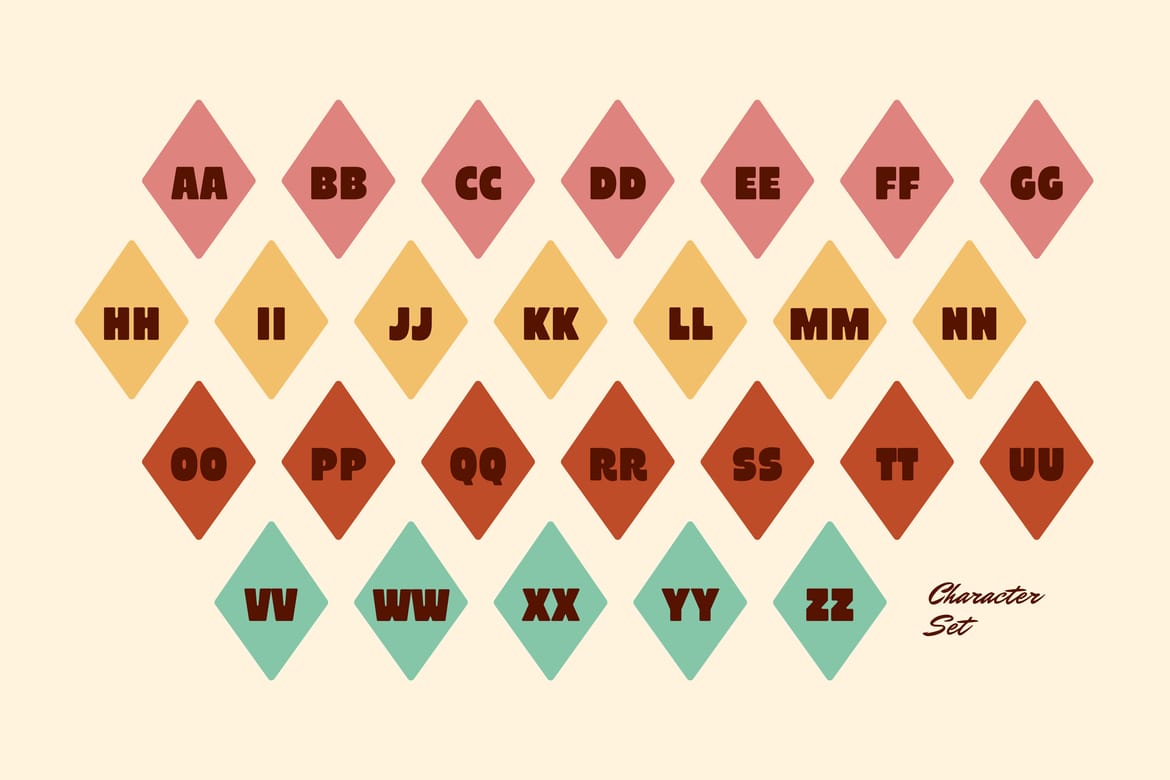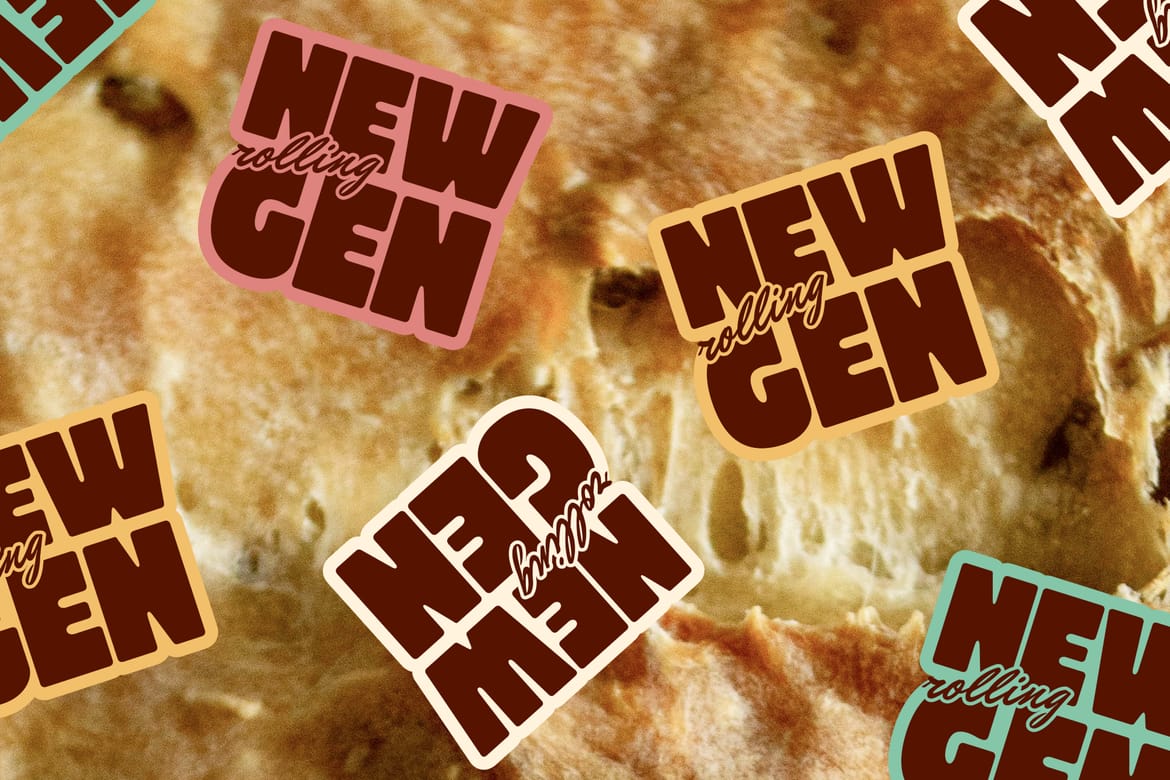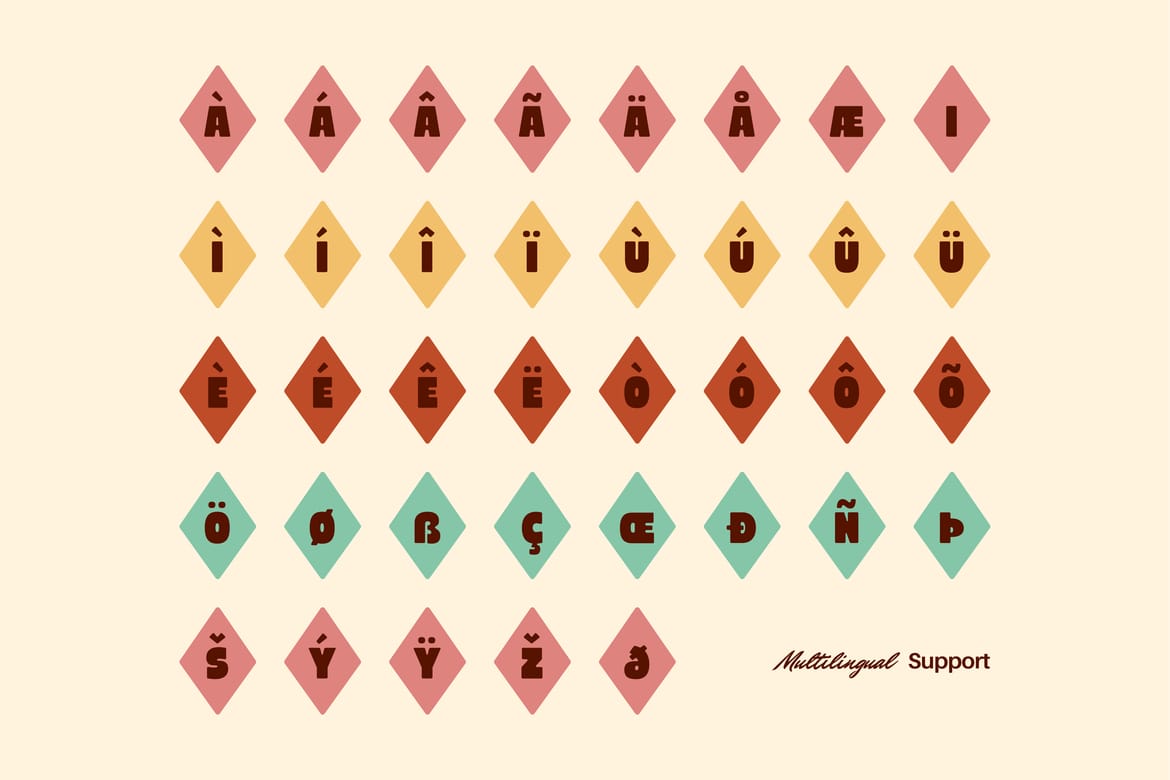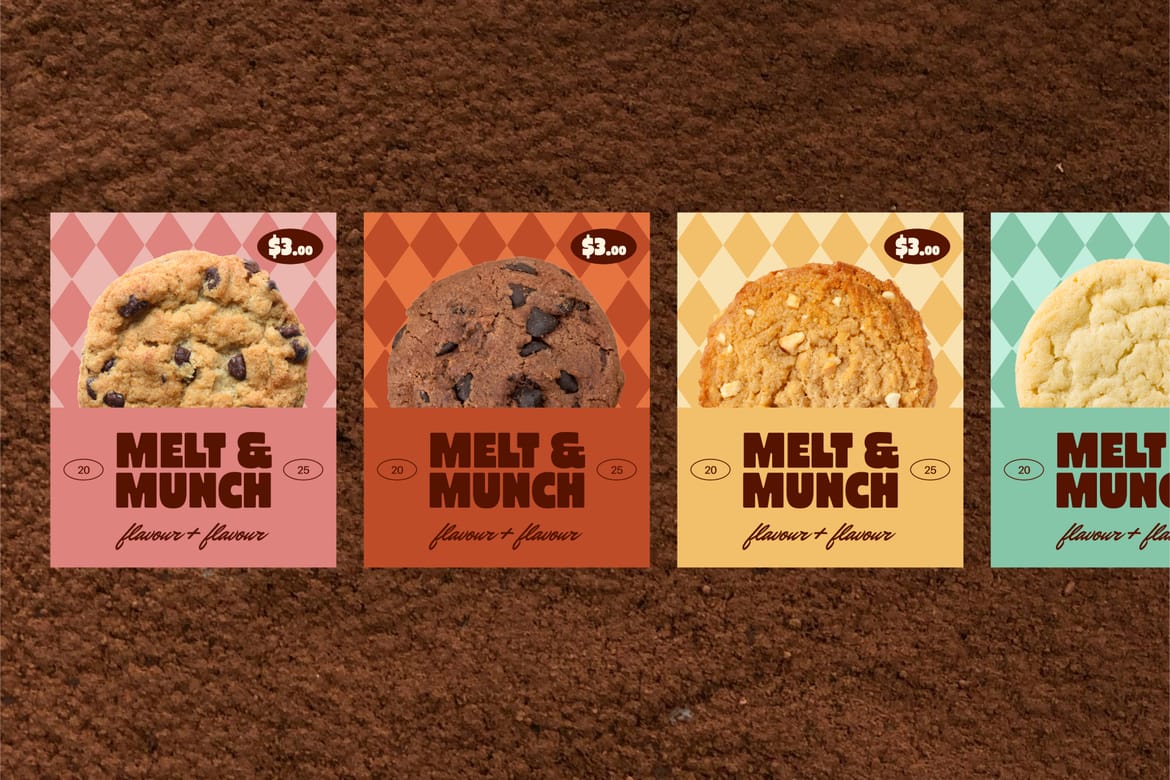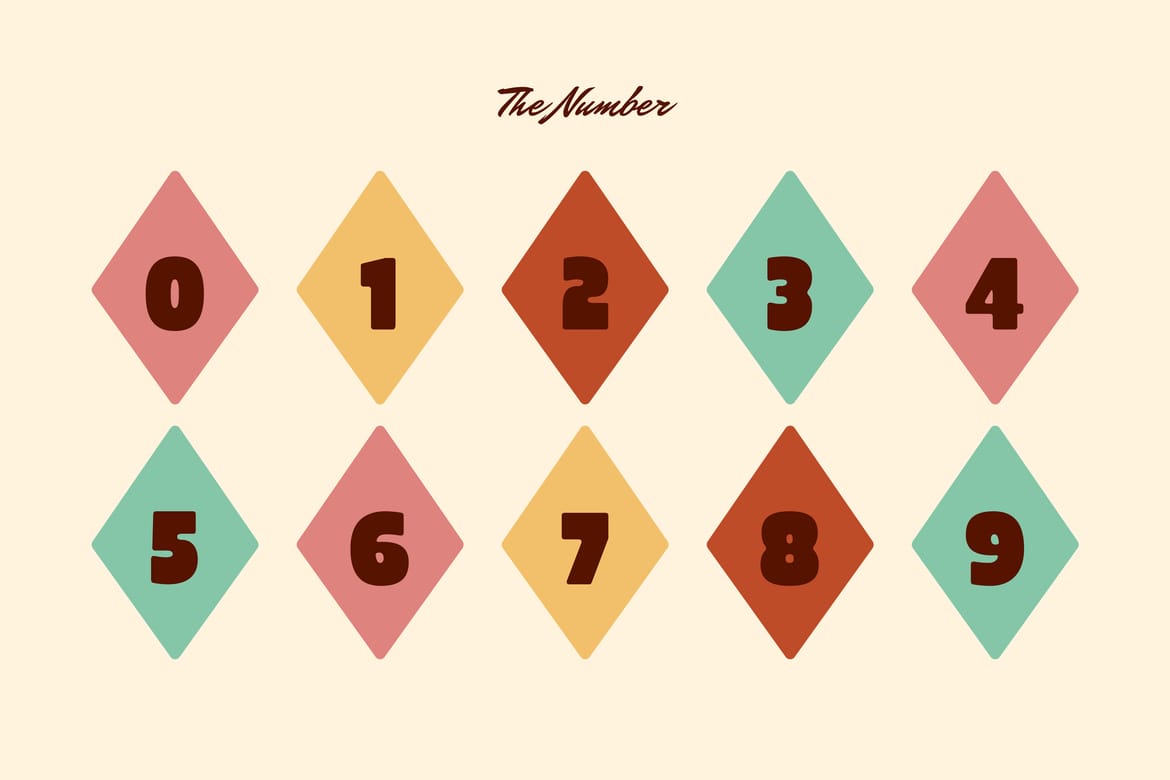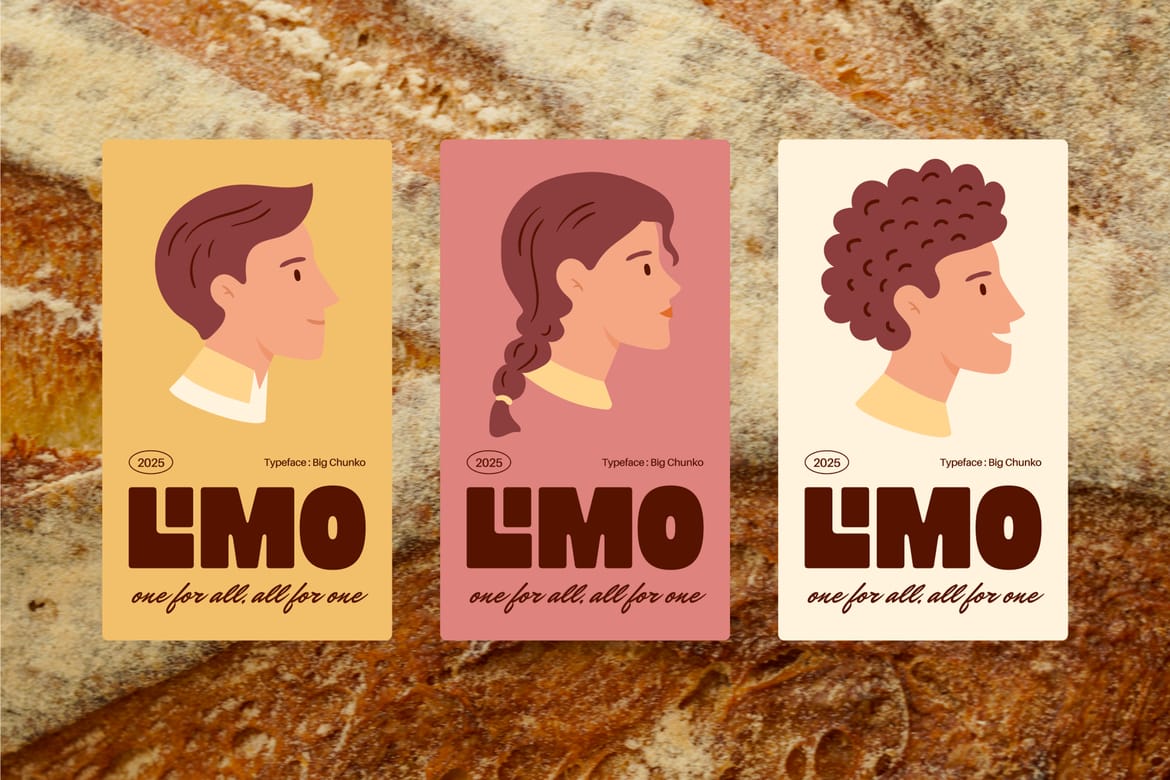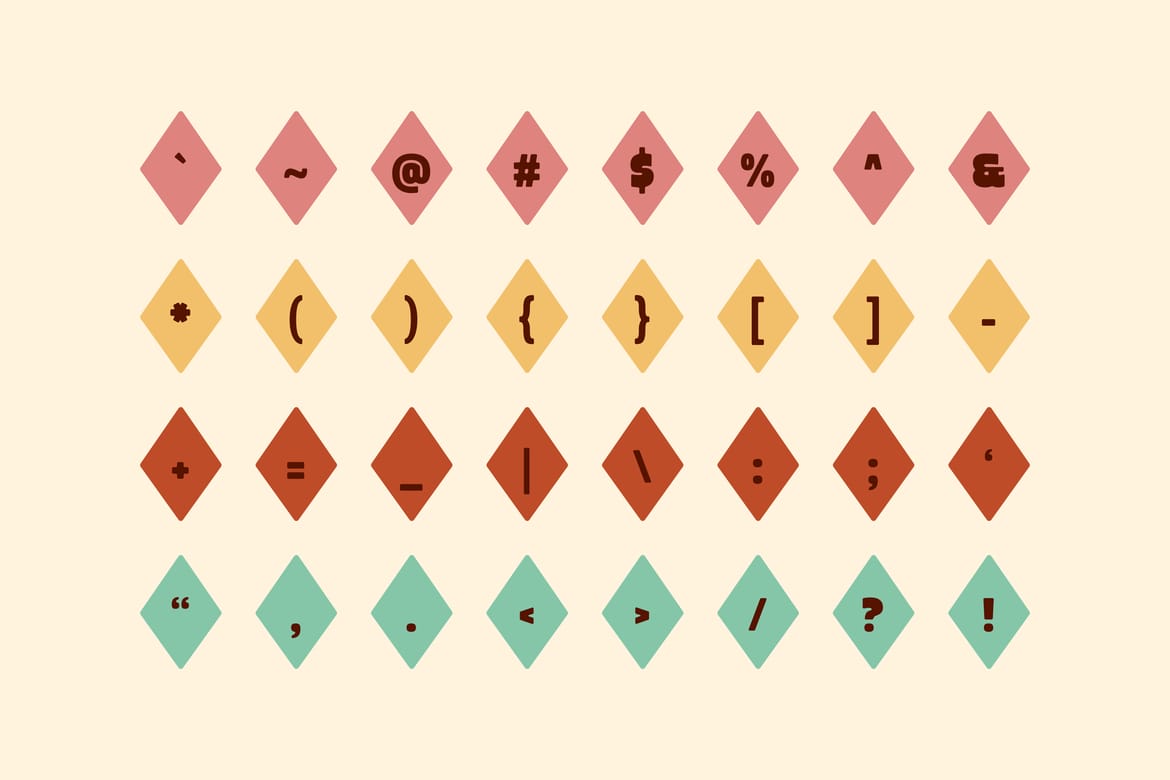
Big Chunko is a bold display font with a playful retro vibe, perfect for posters, headlines, branding, and social media. Its chunky letterforms make your design stand out with strong personality. Ideal for creative projects, modern typography, and eye-catching layouts that need fun, unique, and stylish text.
Heavy chunky display with a strong retro character
Perfect for food branding, merchandise, and bold packaging concepts
Thick rounded shapes that create a loud, confident, and highly memorable look